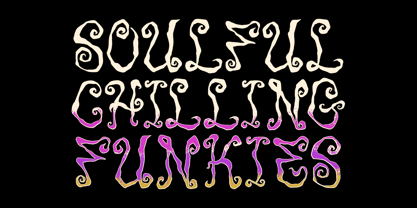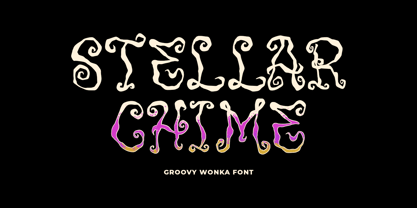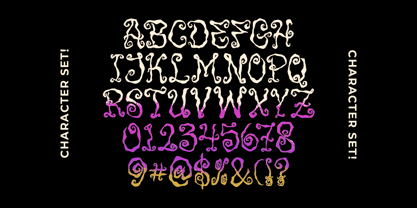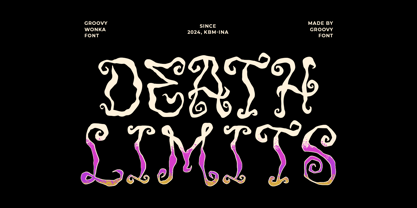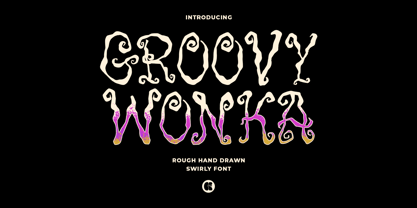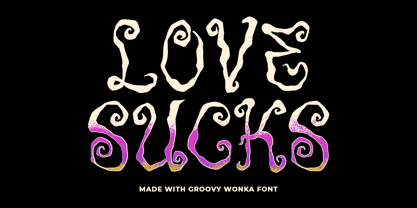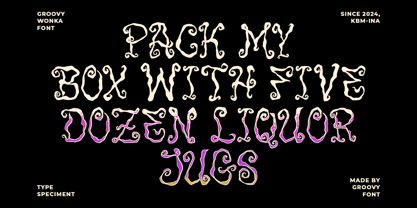
Groovy Wonka
by Groovy Font
The Groovy Wonka Font Family was designed by Ahmad Ginanjar Riyadi and published by Groovy Font. Groovy Wonka contains 1 styles. More about this family
Groovy Wonka is a rough, hand-drawn, swirly font designed specifically for Halloween-themed design projects.
Its unique style and playful elements make it perfect for adding a spooky and fun vibe to any design.
Designers: Ahmad Ginanjar Riyadi
Foundry: Groovy Font